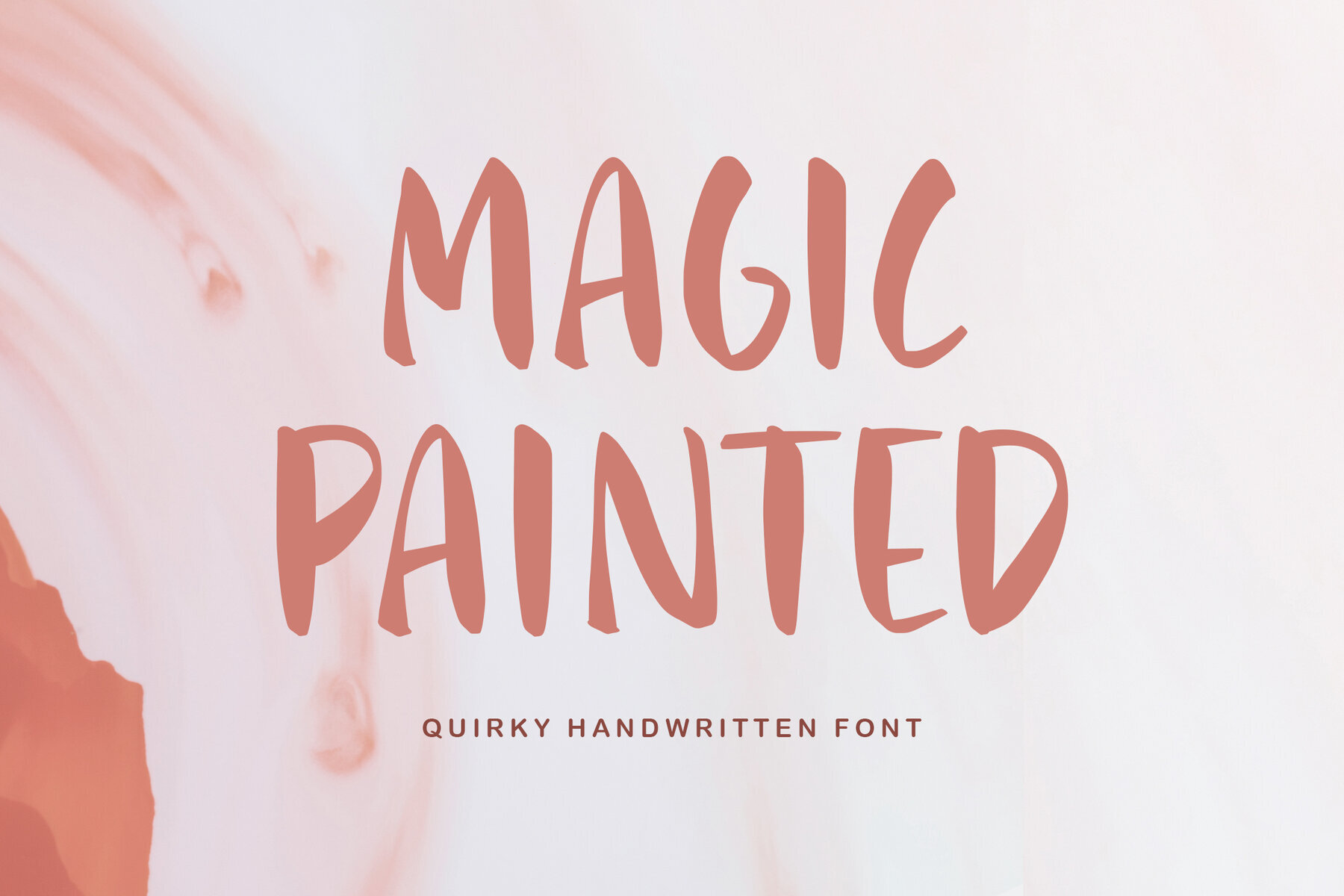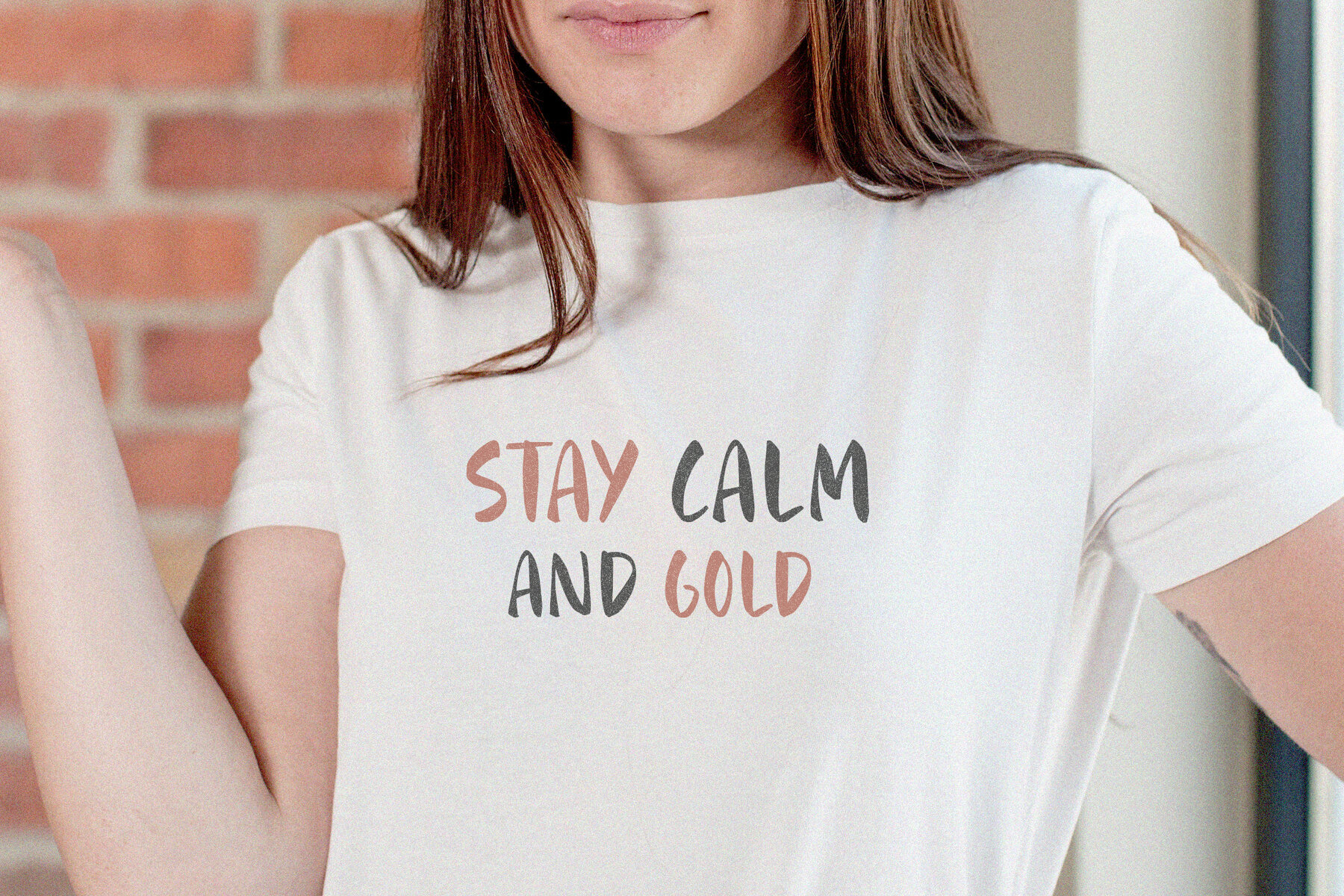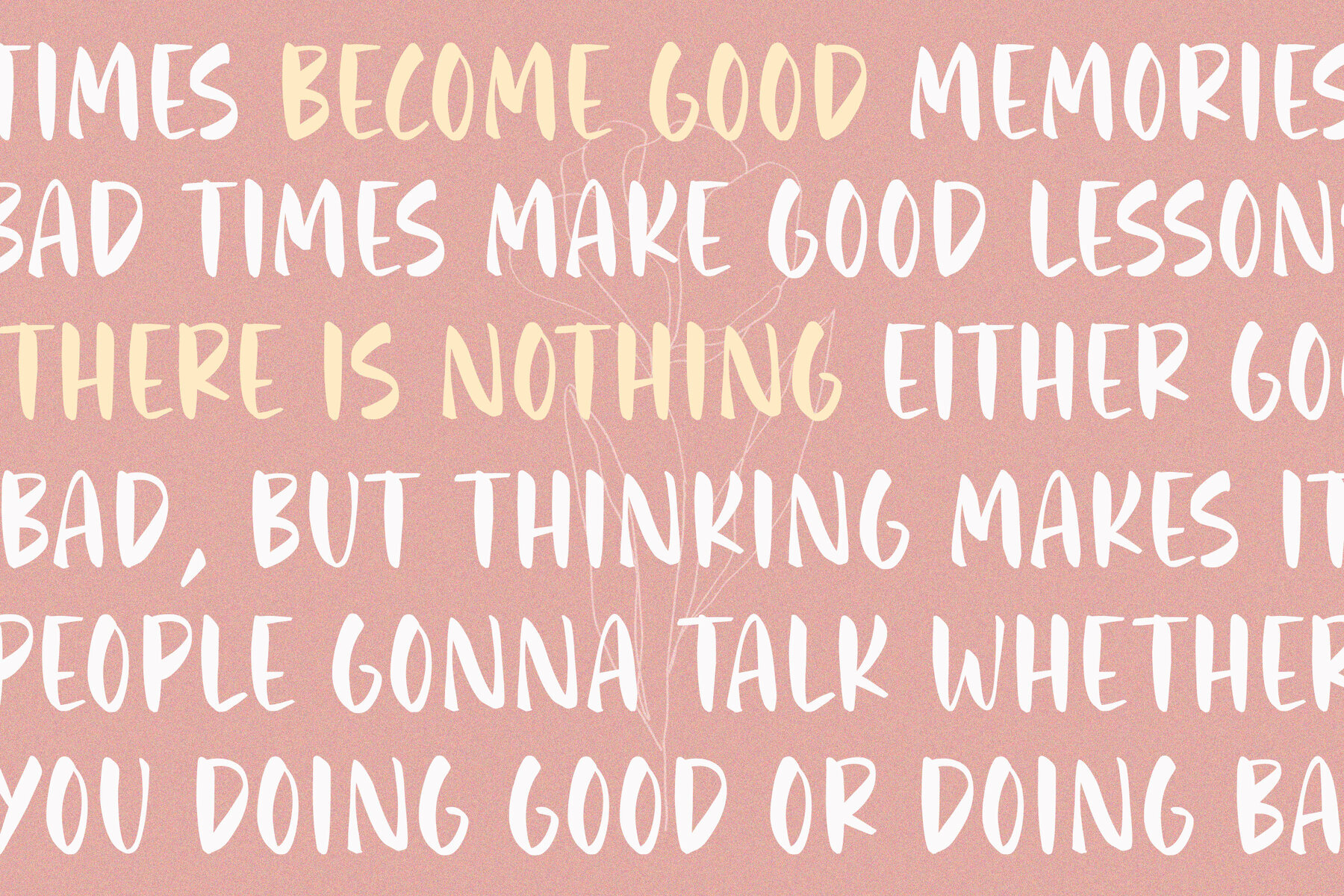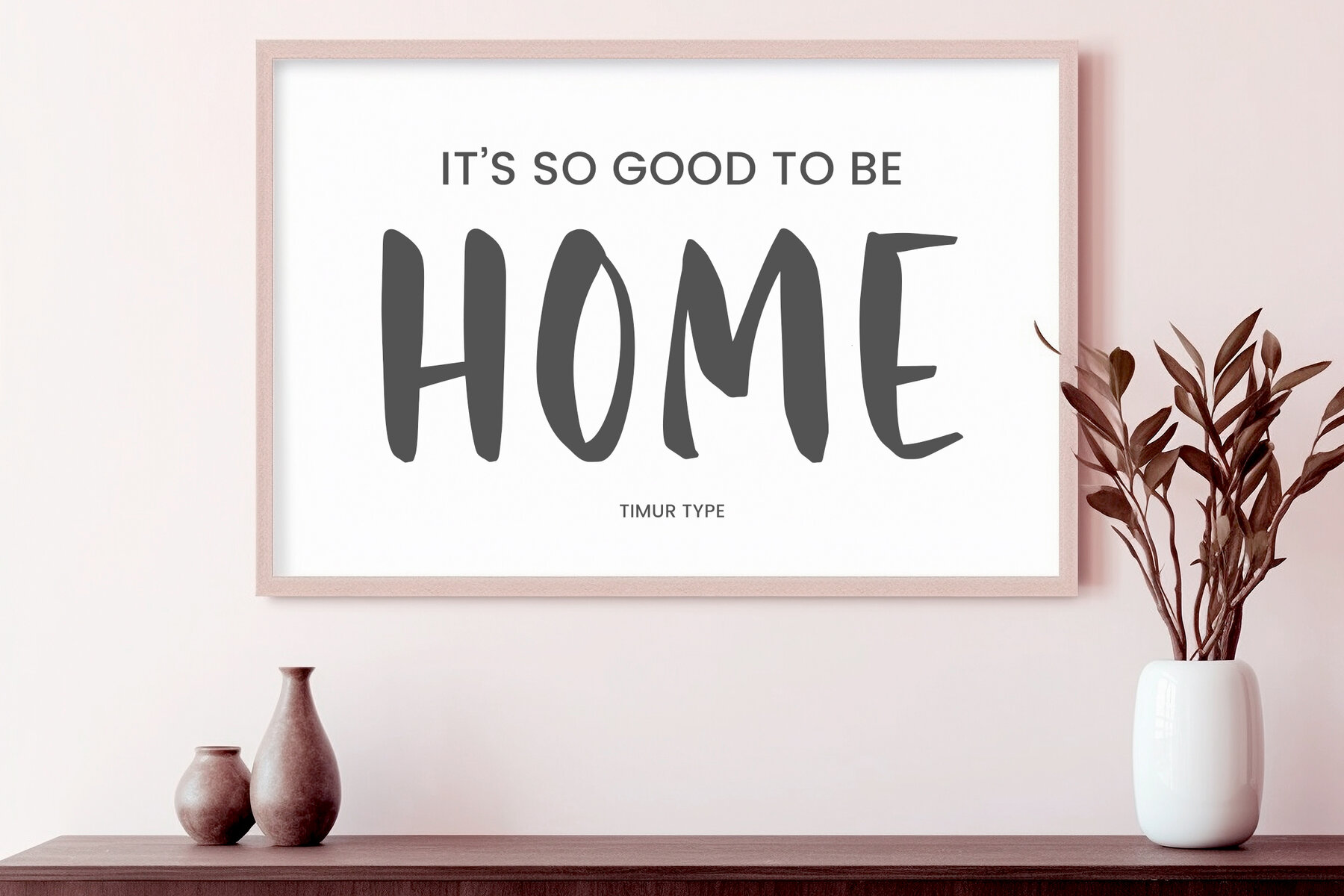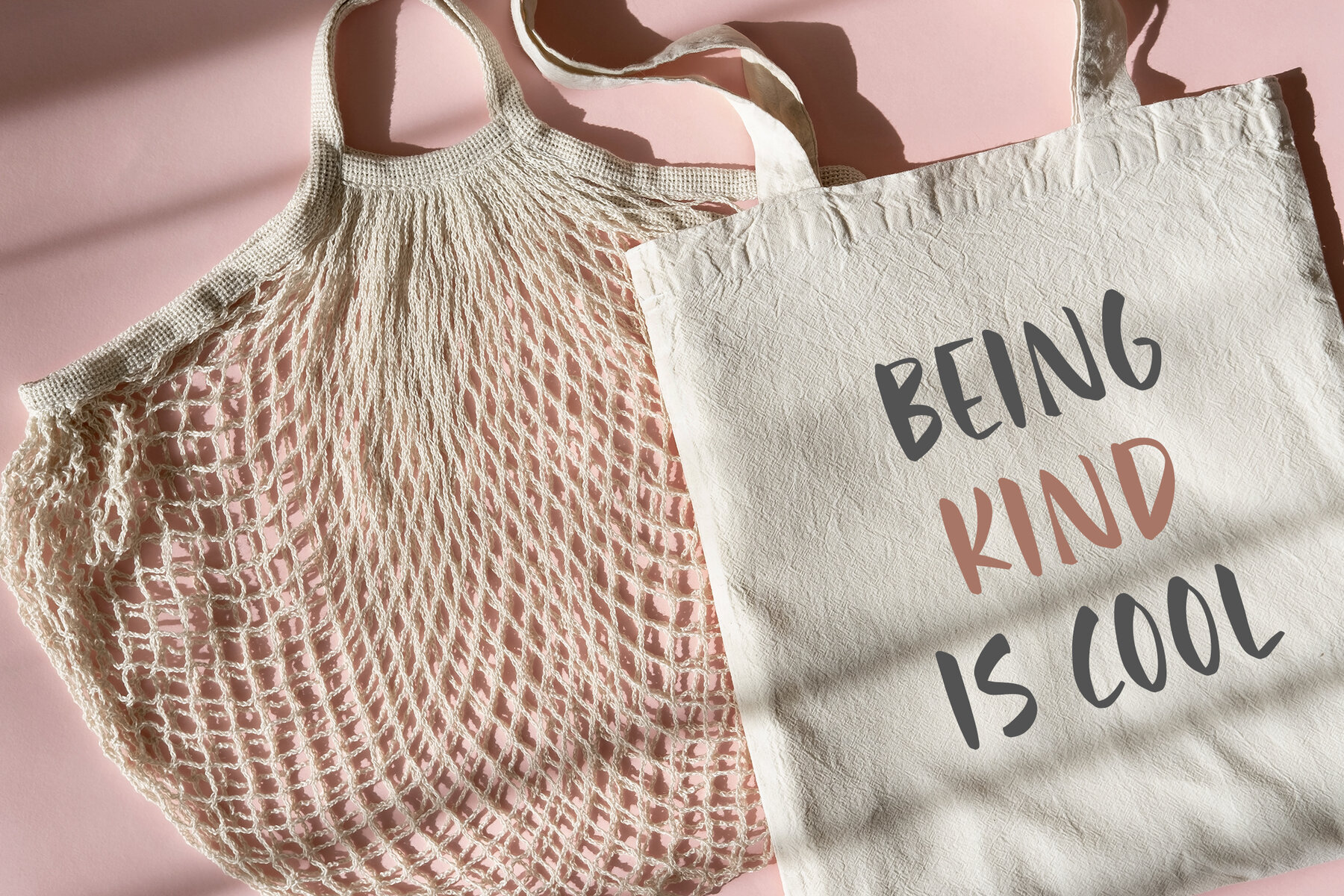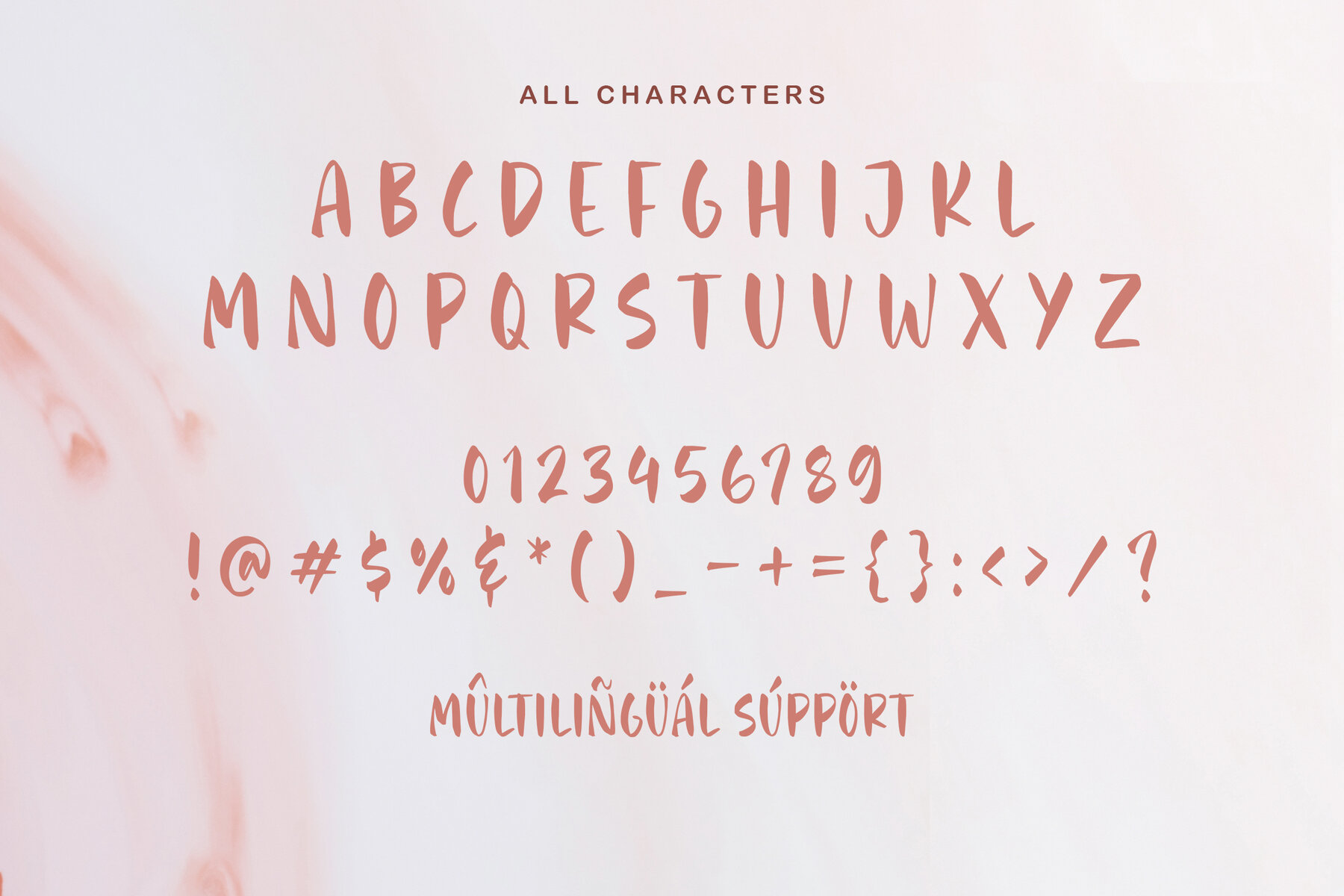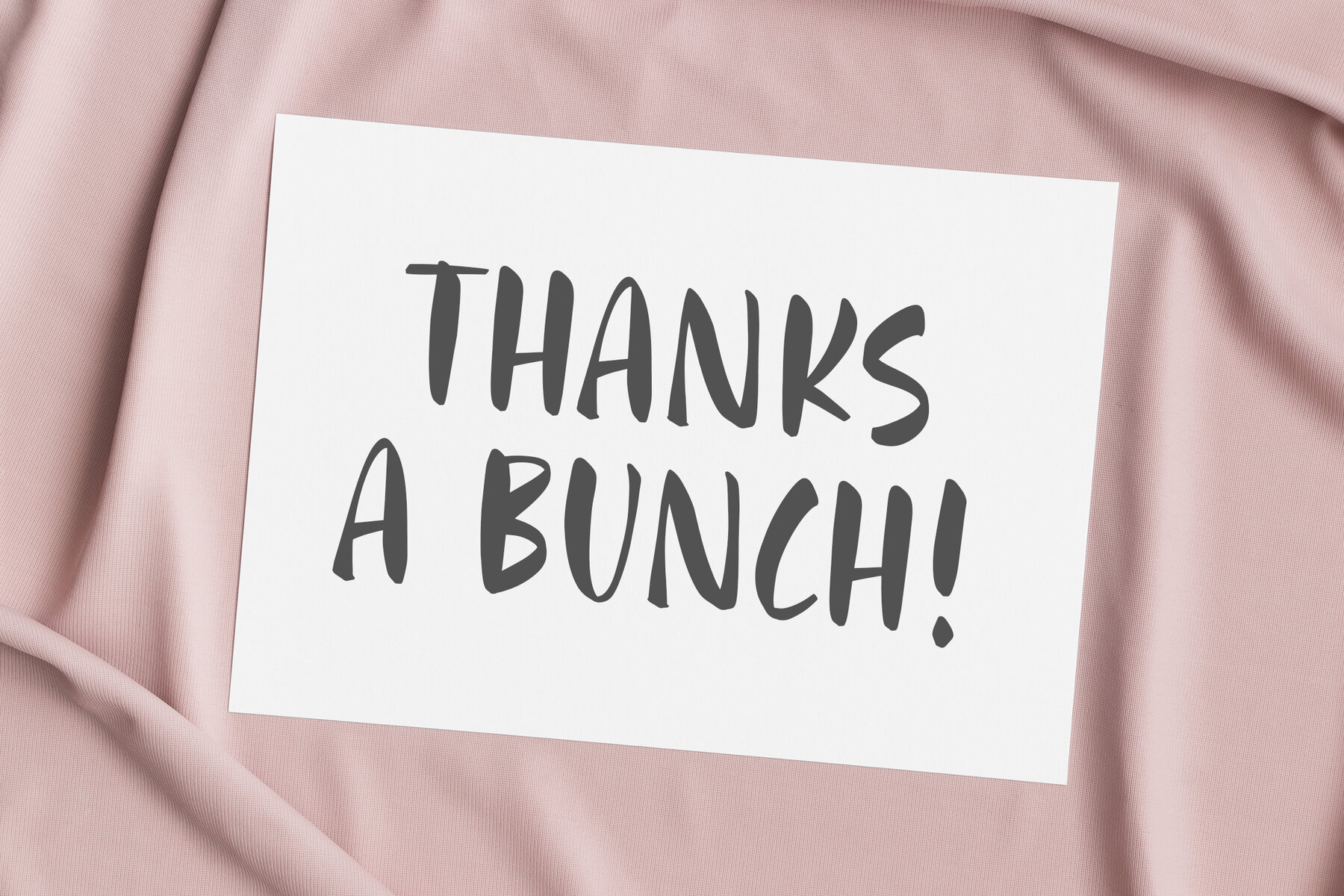
Magic Painted Font
Magic Painted
Magic Painted is a quirky handwritten font exuding modern freshness with a warm touch, ideal for infusing an inviting feel into your projects. This versatile typeface is perfect for product packaging, branding projects, magazines, social media posts, and wedding invitations. It adds a unique flair when used to express words against varying backgrounds, showcasing its adaptability.
The font comes with a comprehensive set of standard alphabet characters and punctuation marks, ensuring smooth, professional-quality text. Additionally, Magic Painted supports multiple languages, making it a great choice for diverse, multilingual projects. Embrace the charm and flexibility of Magic Painted to bring a distinctive, personal touch to your creative work.